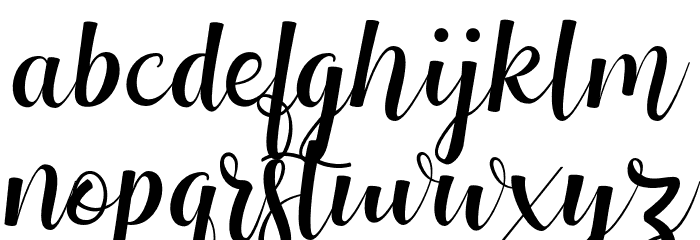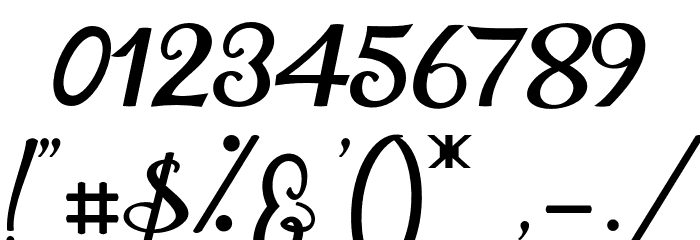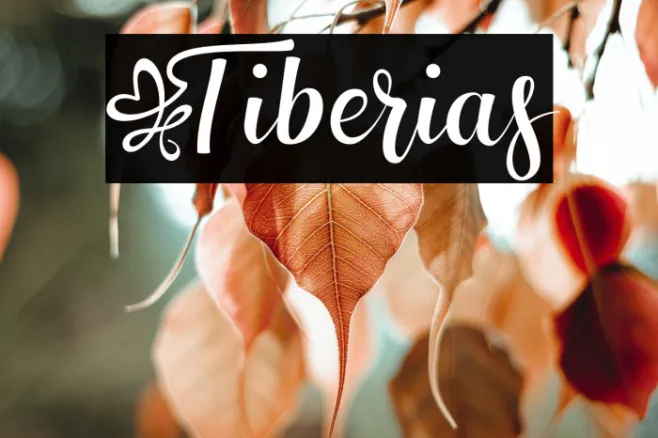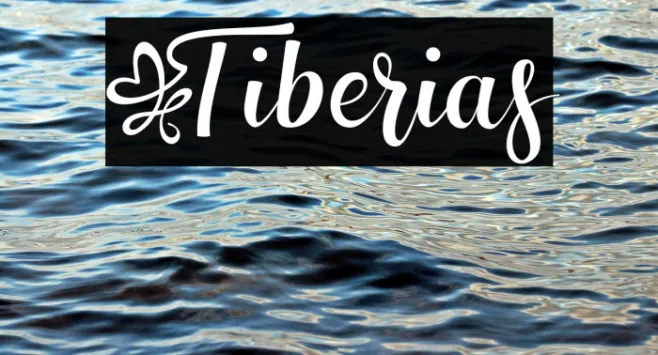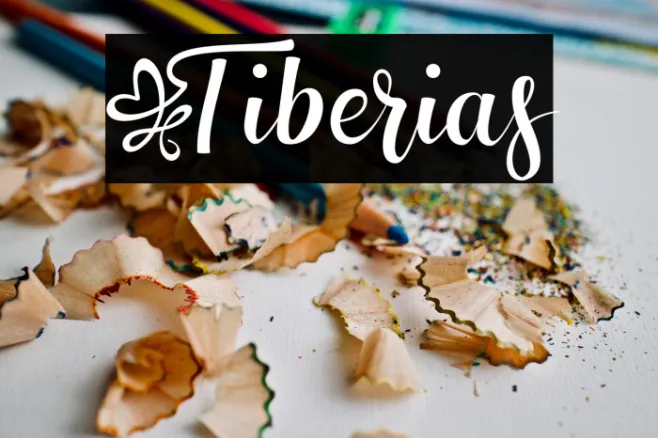
Tiberias Font
This font features an elegant and decorative script style with a playful and whimsical flair. The uppercase letters are adorned with intricate floral embellishments, adding a touch of sophistication and charm. The lowercase letters maintain a smooth, flowing cursive appearance, emphasizing fluidity and grace. The numerals are bold and clear, ensuring readability while maintaining the overall decorative theme. Special characters are designed with a similar attention to detail, making them suitable for a variety of creative applications. The font's unique style makes it ideal for projects that require a personal and artistic touch.
A decorative script font with floral embellishments and a whimsical style.
- Font: Tiberias
- Category: Script